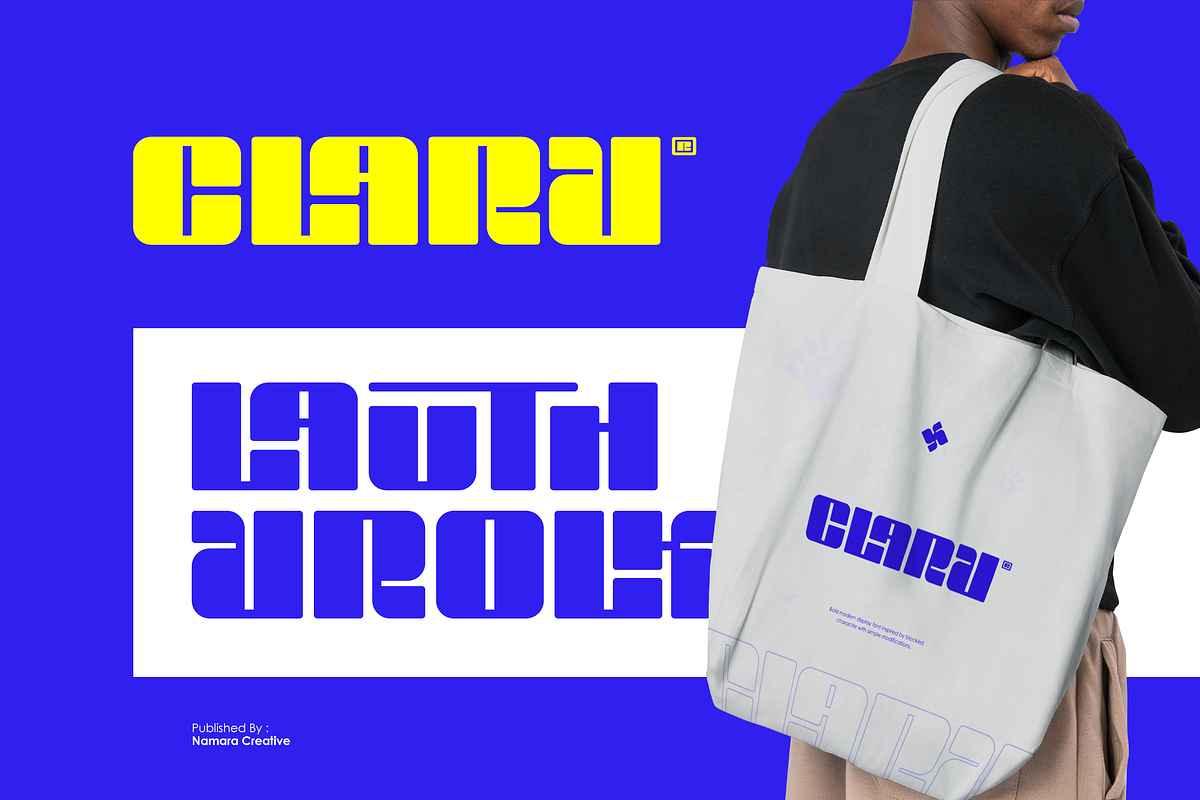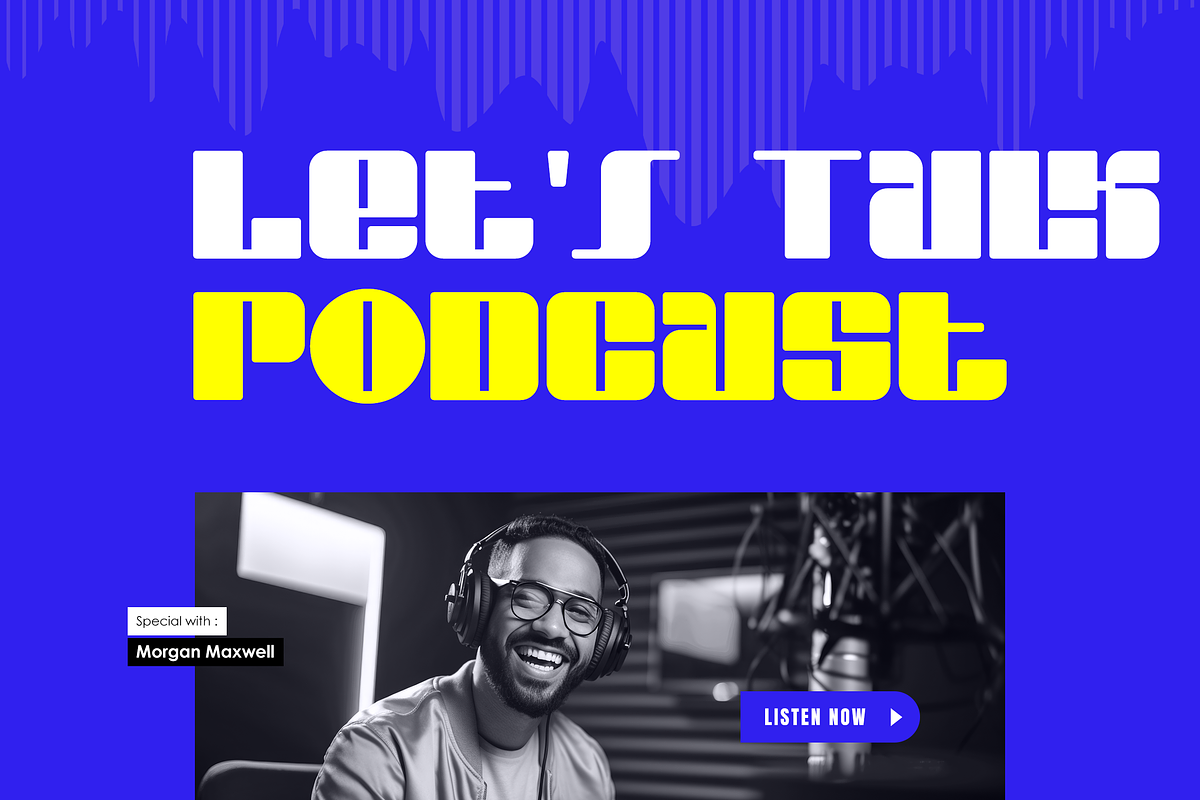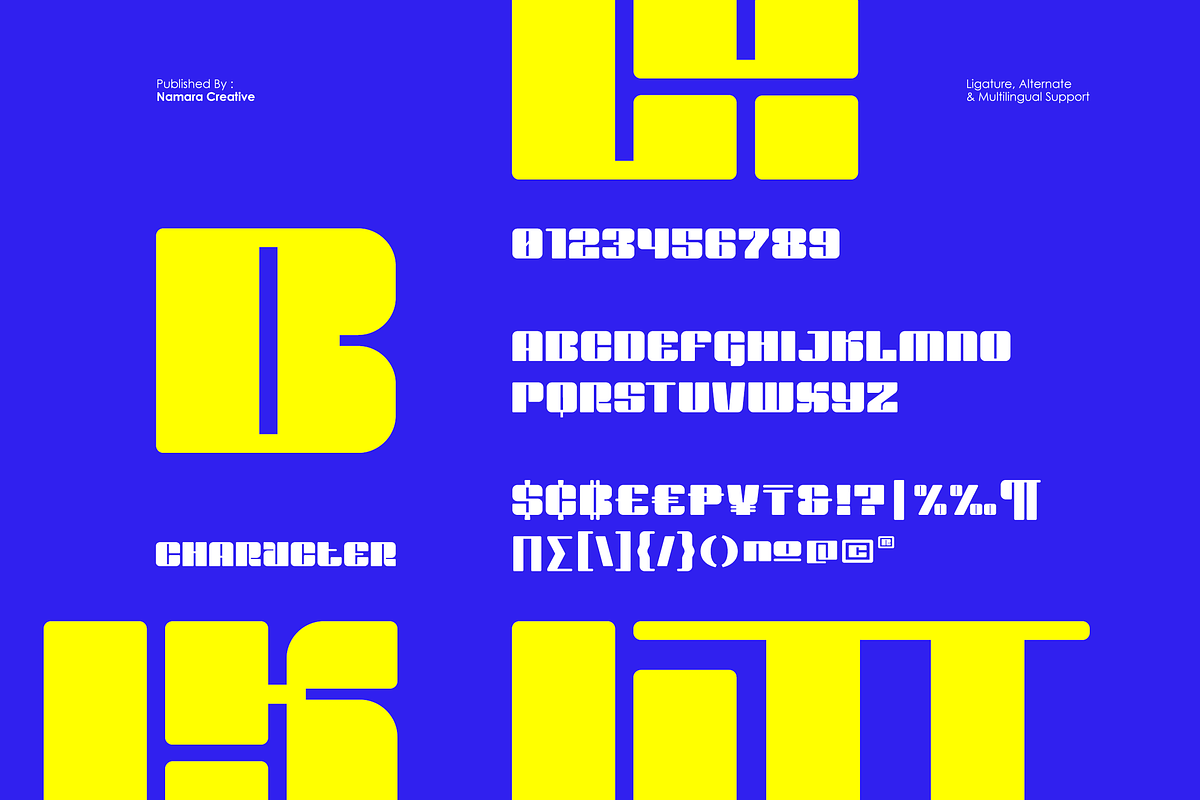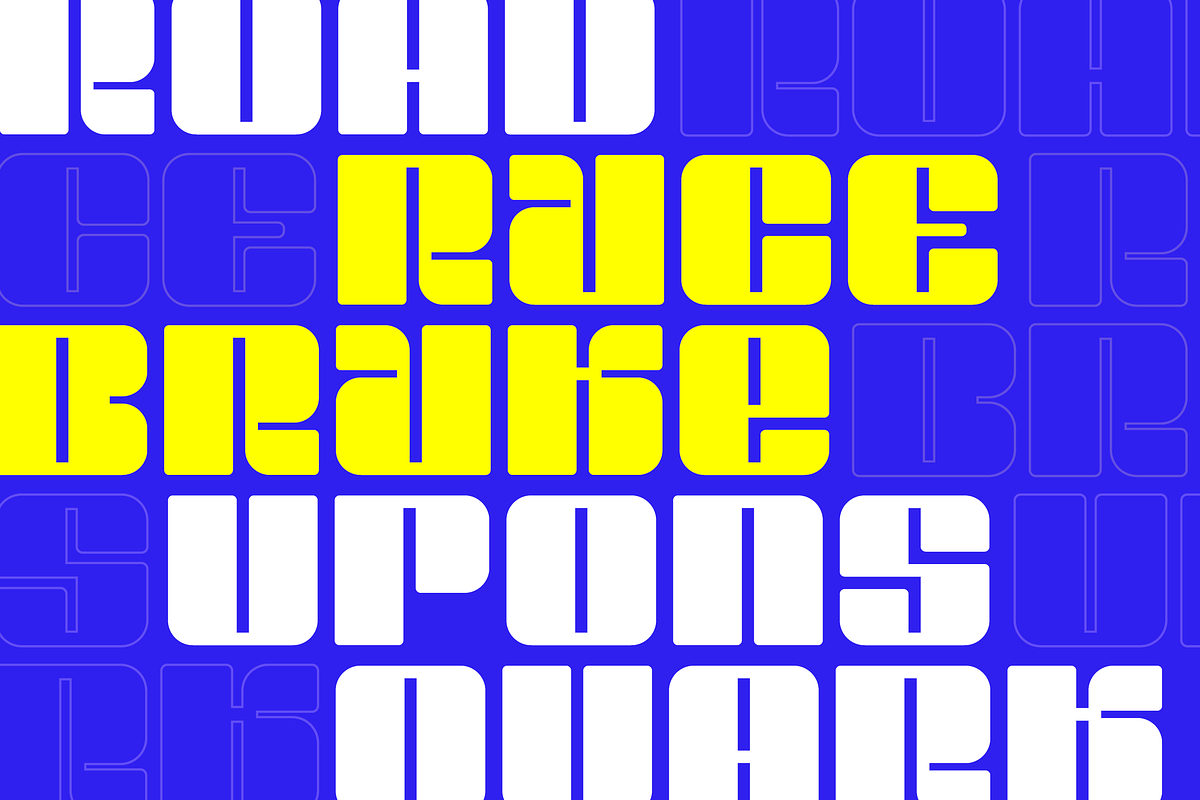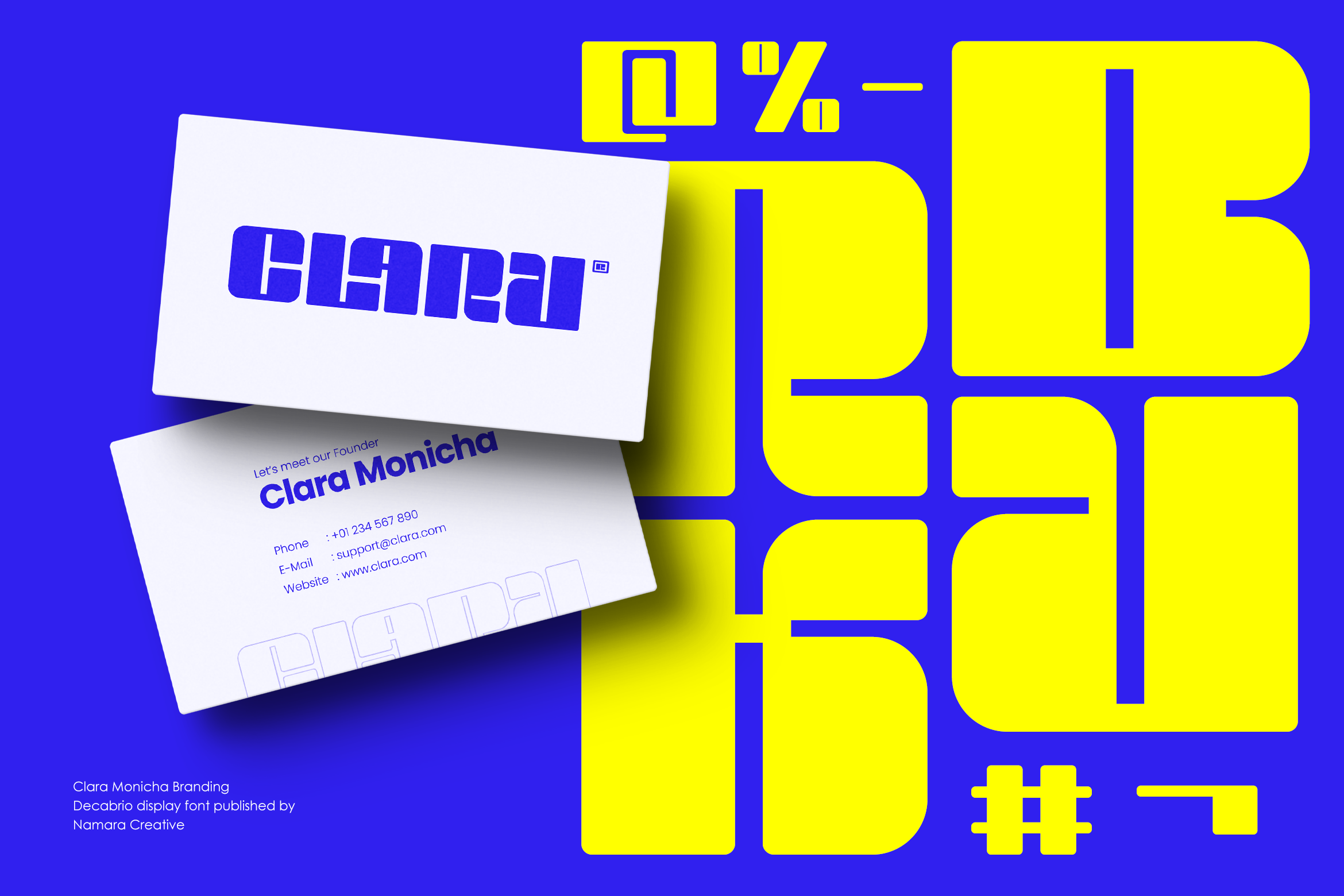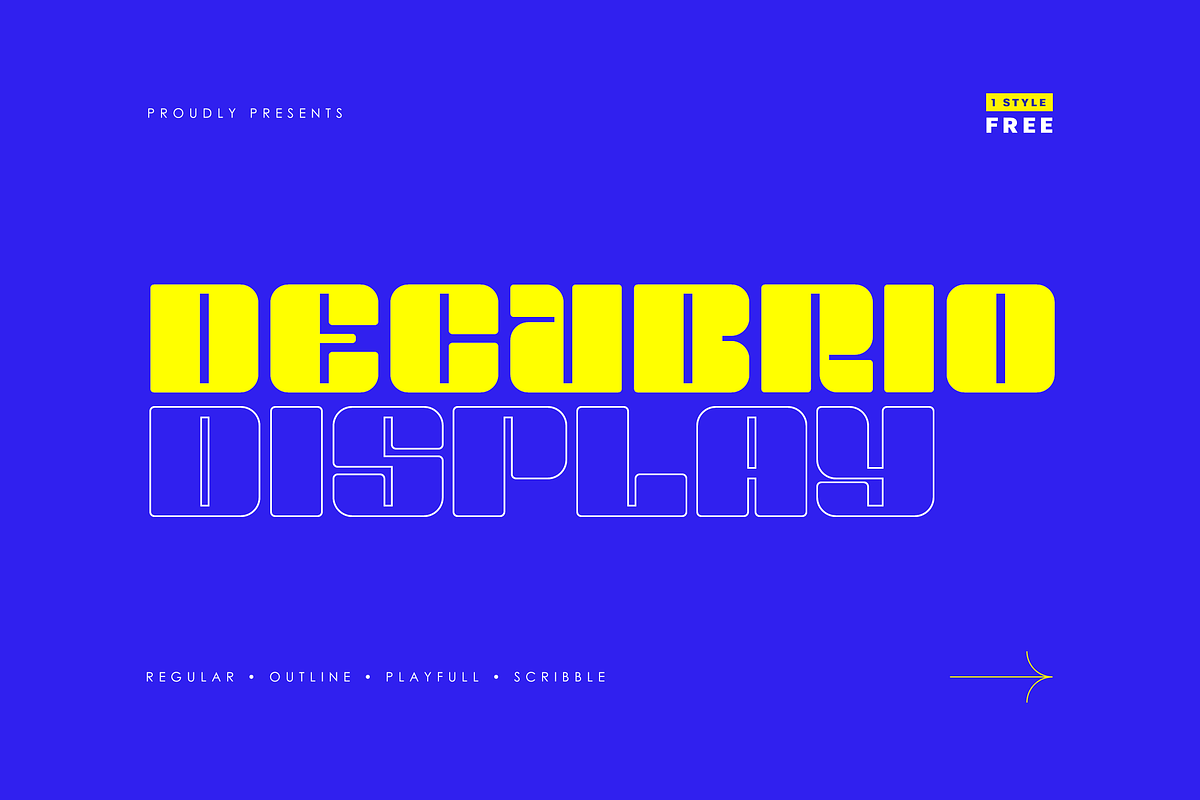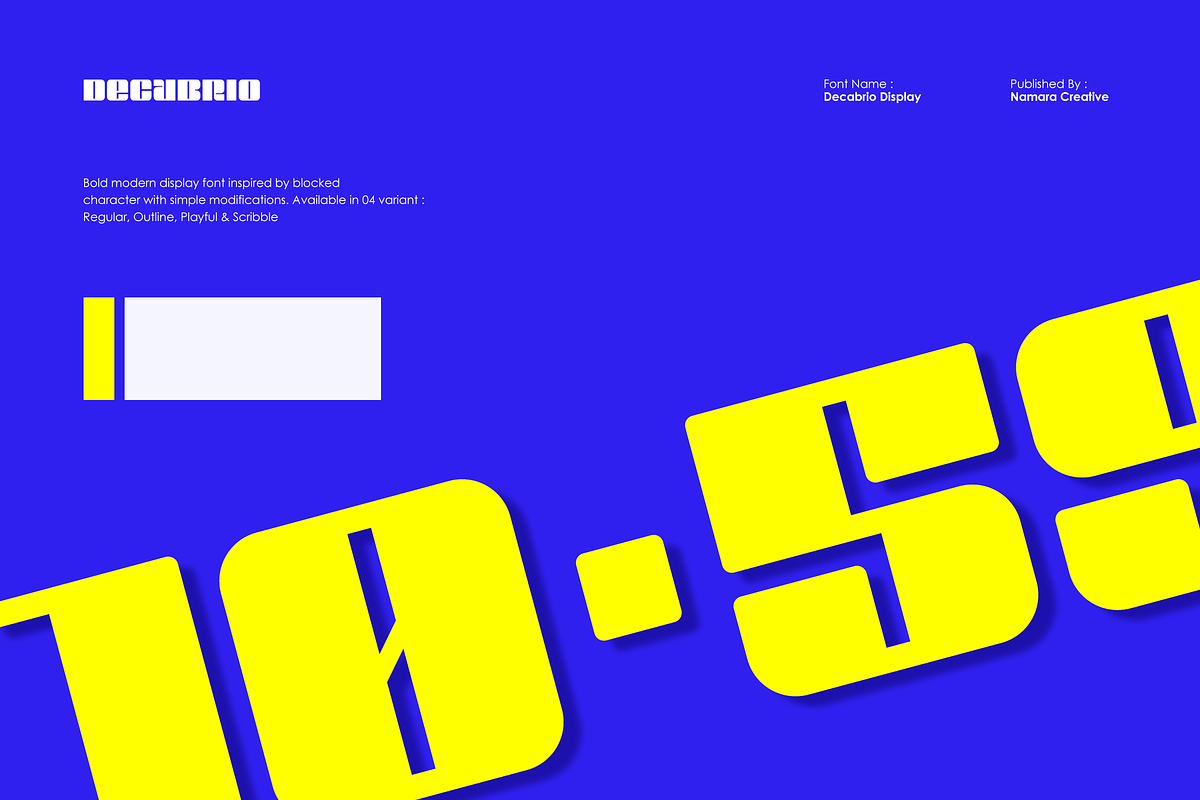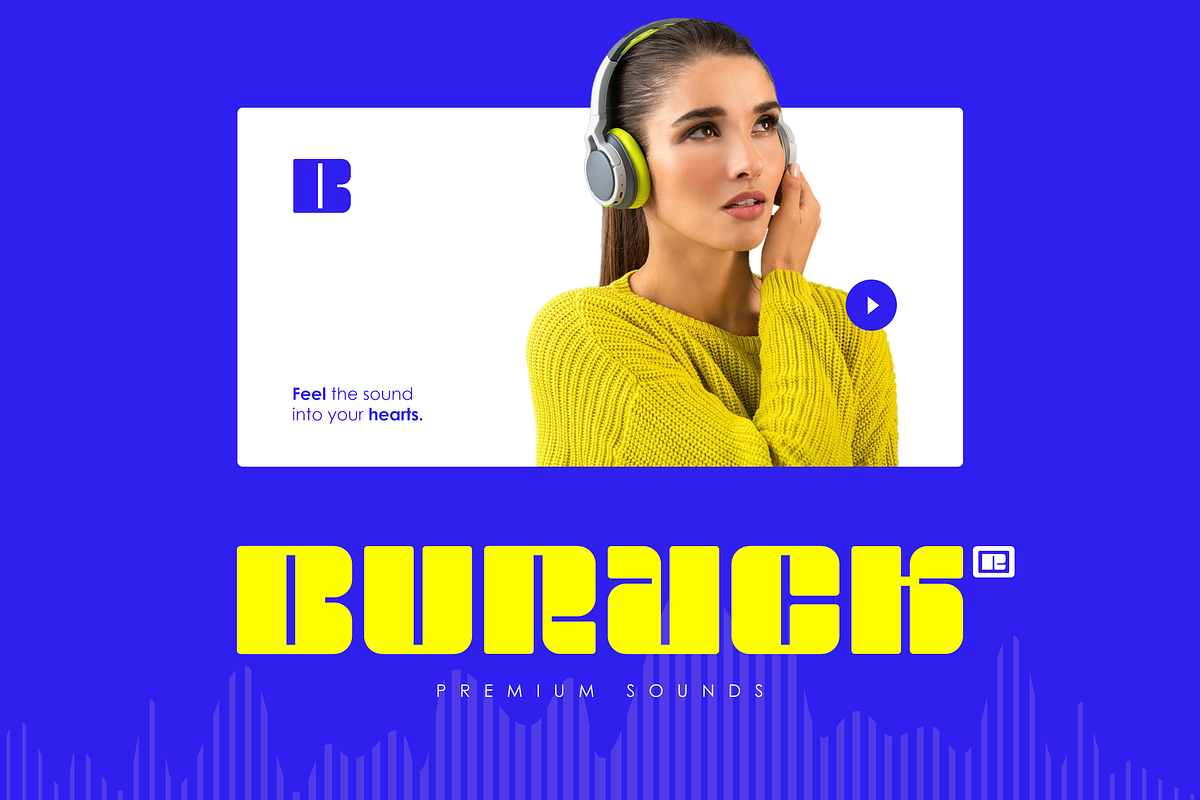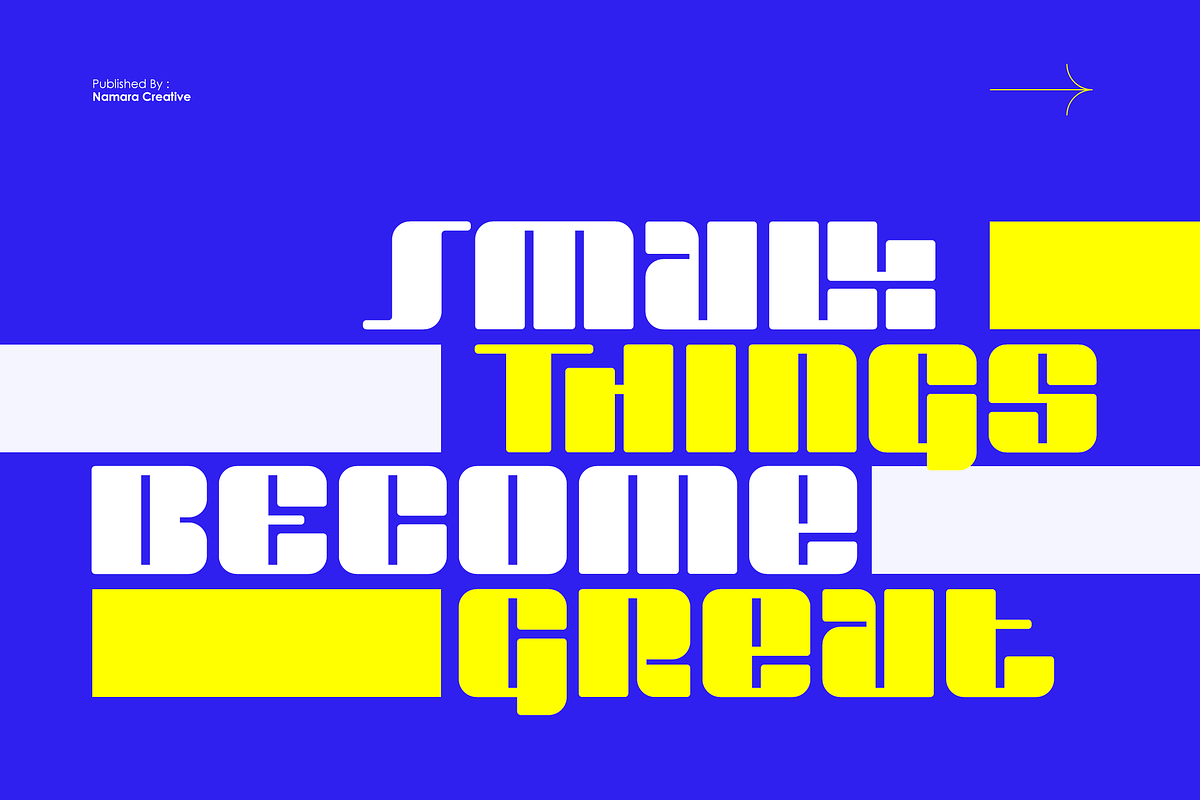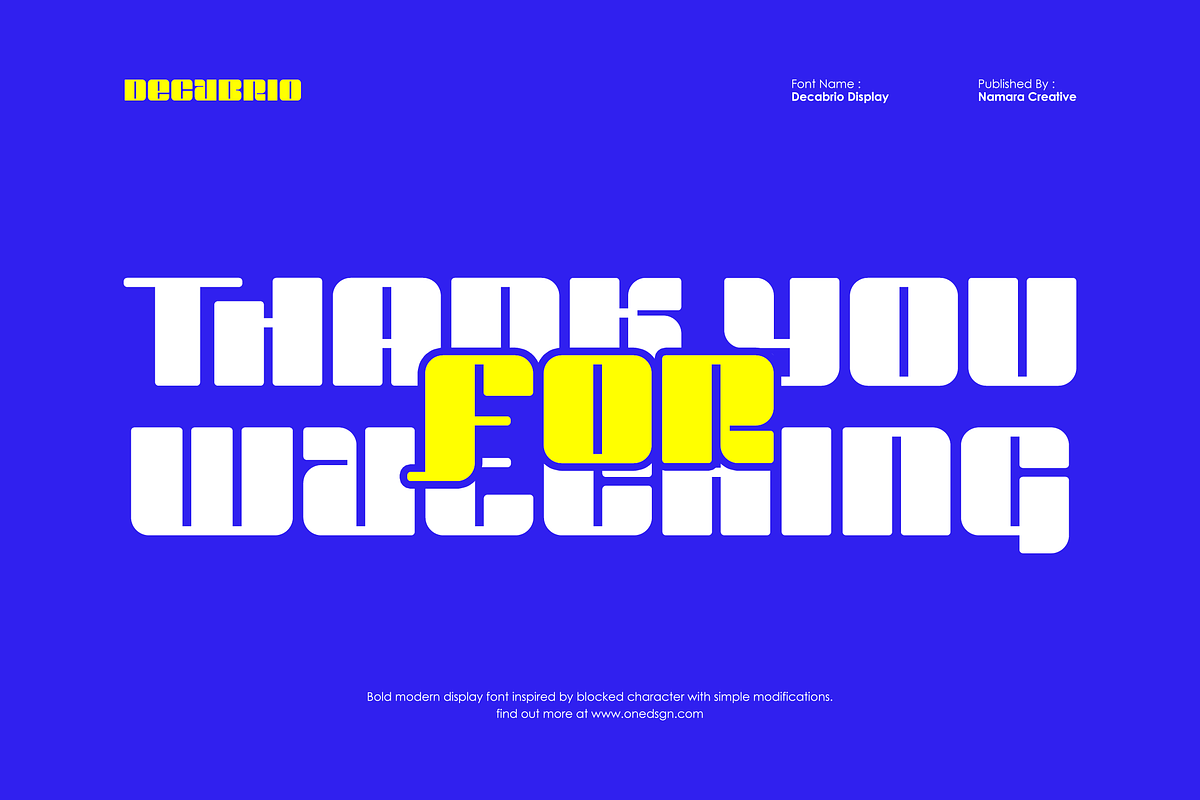
Decabrio - Display Fonts
A unique blend of boldness & softness makes this font attractive and suitable for various projects, from corporate branding to creative posters. It’s designed to catch the eye and leave a lasting impression without sacrificing readability.
Transform your designs with Decabrio – bold modern display font and bring your creative visions to life with confidence and style.
- Alternates, Ligatures & Multilingual Support
- Unique, bold and rounded theme fonts